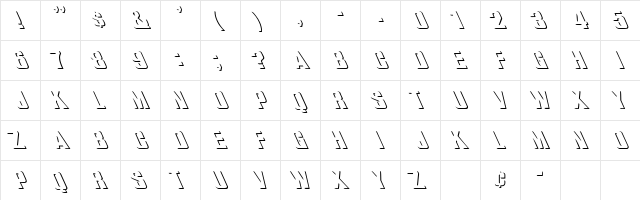
What A-Relief Extreme Lefti Regular Font Preview
What A-Relief Extreme Lefti Regular
Design Context for What A-Relief Extreme Lefti Typeface
What A-Relief Extreme Lefti is a composed and adaptable typeface that performs quietly and consistently across a wide range of design contexts.